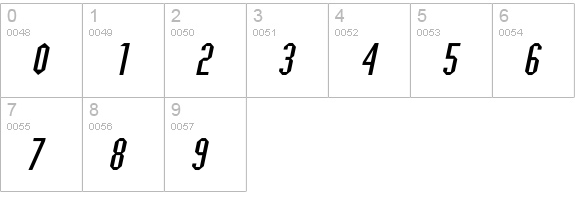
Jagged Dreams Font Details
Introducing Jagged Dreams, a captivating font that will transport your designs to a realm of unrivaled creativity. With its mesmerizing jagged edges and intricate details, this font embodies a dreamlike quality that is sure to captivate and inspire. Jagged Dreams is a versatile typeface that effortlessly combines elegance with a touch of edginess. Its unique contours and sharp lines create a bold and modern aesthetic, making it the perfect choice for those seeking to make a statement with their designs. Whether you're designing a logo, poster, or website, Jagged Dreams will give your project a distinctive and unforgettable look. But what truly sets Jagged Dreams apart is its accessibility. This font is freely available to download at FontsMarket.com, allowing designers of all backgrounds and budgets to access its stunning beauty. We believe that creativity should not be limited by financial constraints, and that's why we've made Jagged Dreams available for free. So, why wait? Unlock your imagination and let Jagged Dreams take your designs to new heights. Download this extraordinary font today and let your creativity soar.